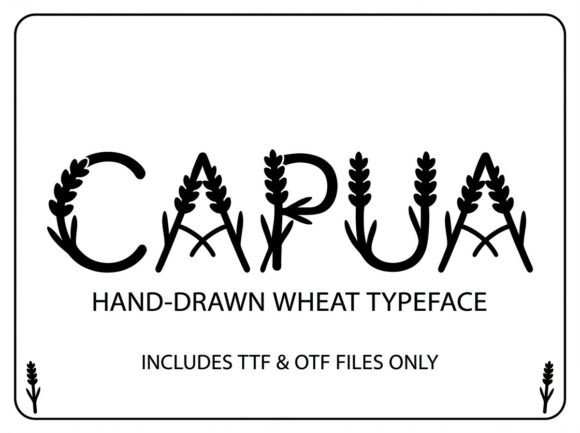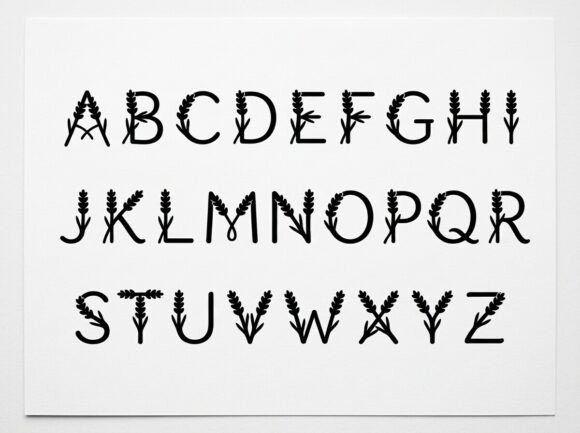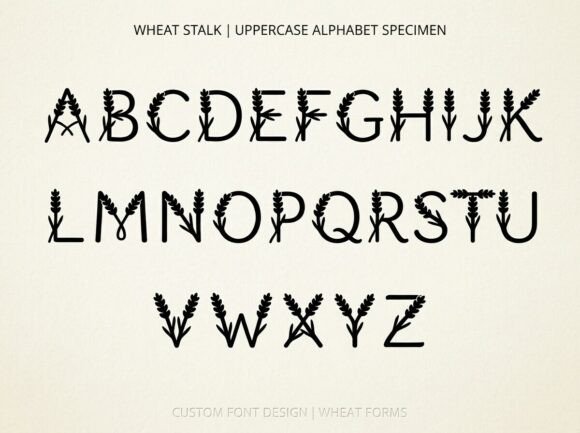
Introducing Capua Font: Elevate Your Creative Projects with a Decorative Display Font
Are you tired of using the same old fonts for your creative projects? Do you want to make a statement and break away from the ordinary? Look no further than Capua Font, a decorative display font designed to be the centerpiece of any layout. With its distinct artistic elements and strong character, Capua Font is perfect for creators who want to add a touch of elegance and sophistication to their work.
What Makes Capua Font Special?
Capua Font is a unique and stylish font that is sure to elevate your creative projects. Its bold and eye-catching design makes it perfect for headlines, titles, and decorative initials. The font is an all-caps display typeface, which means it is designed specifically for use in large, attention-grabbing text. By design, it does not contain lowercase letters, making it a powerful tool for logos, titles, and decorative initials.
Key Features of Capua Font
Uses for Capua Font
Capua Font is a versatile font that can be used in a variety of creative projects. Here are just a few ideas to get you started:
- Headlines and Titles: Use Capua Font to create bold and eye-catching headlines and titles for your blog posts, articles, and other written content.
- Branding and Packaging: Use Capua Font to create high-end, professional branding and packaging for your business or product.
- Logos and Icons: Use Capua Font to create unique and stylish logos and icons for your business or personal brand.
- Decorative Initials: Use Capua Font to create beautiful and elegant decorative initials for your written content.
Benefits of Using Capua Font
There are many benefits to using Capua Font in your creative projects. Here are just a few:
- Unique and Stylish: Capua Font is a unique and stylish font that is sure to make your work stand out from the crowd.
- High-End Aesthetic: Capua Font delivers a high-end, professional aesthetic without compromising on personality.
- Perfect for Creative Projects: Capua Font is perfect for a variety of creative projects, from headlines and titles to branding and packaging.
Tips for Using Capua Font
Here are a few tips for using Capua Font in your creative projects:
- Use it Sparingly: Because Capua Font is a decorative display font, it’s best to use it sparingly to make a big impact.
- Pair it with Other Fonts: Consider pairing Capua Font with other fonts to create a unique and stylish look.
- Experiment with Different Sizes: Experiment with different sizes and styles to find the perfect look for your creative project.
Capua Font is a unique and stylish decorative display font that is perfect for creators who want to elevate their creative projects. With its distinct artistic elements and strong character, Capua Font is sure to make a statement and add a touch of elegance and sophistication to any layout. Whether you’re a designer, craft, or DIY enthusiast, Capua Font is a great choice for anyone looking to add a little extra something to their work.